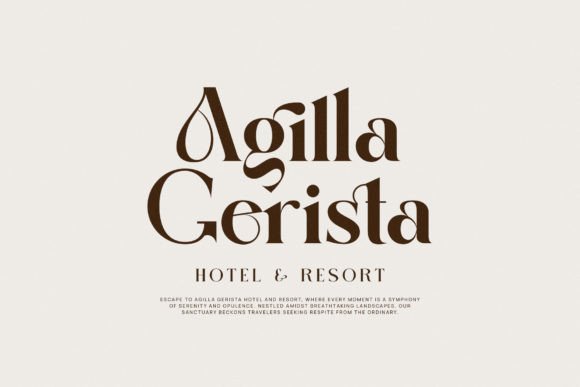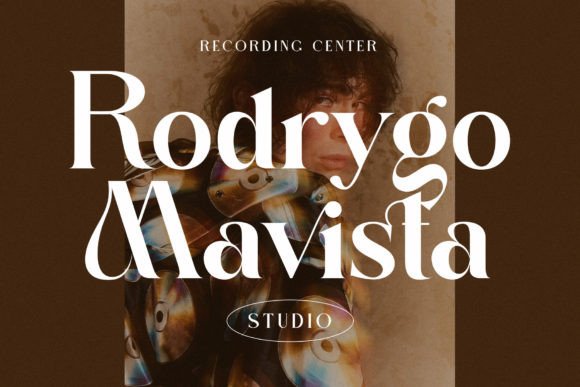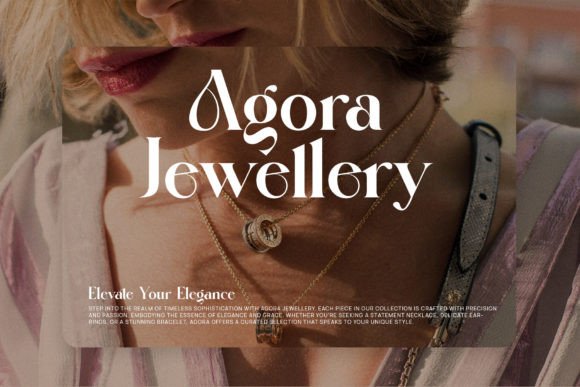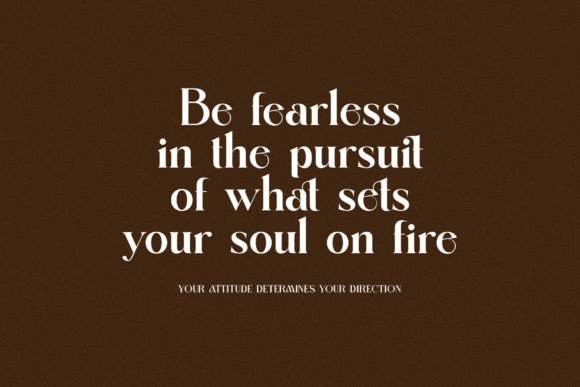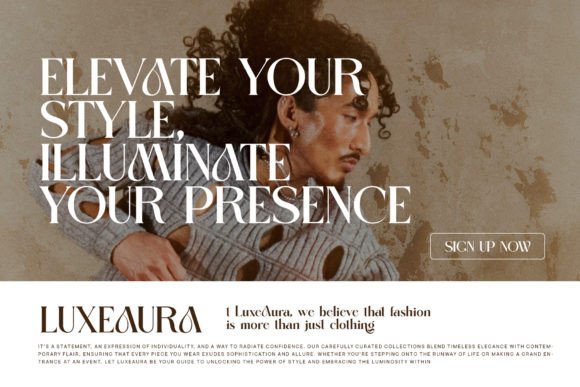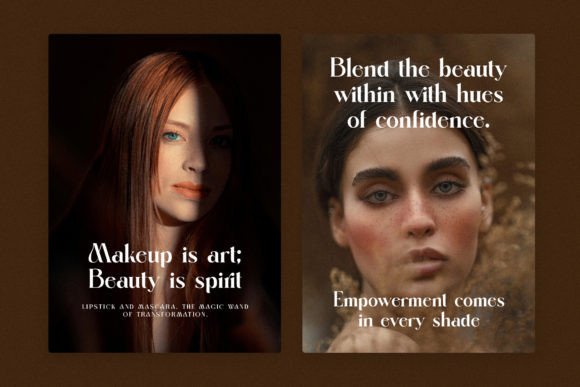
Introduction to Qictter Font
This is a very elegant and classy font for all branding and logo designs.
This type of serif font is created with elegance and luxury so it is perfect for all your design needs This font is equipped with many beautiful and unique ligature and alternate options.
Qictter Font offers exceptional quality and versatility, making it a valuable addition to your design toolkit. Whether you’re creating for personal projects or commercial use, Qictter Font delivers professional results.